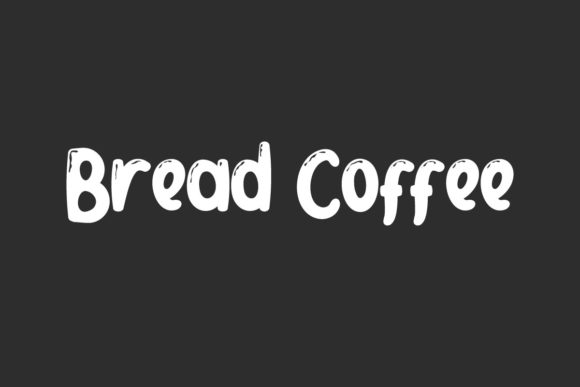
Dive into a world of whimsical charm with Bread Coffee Font, a captivating display font brimming with personality. Its playful and bubbly nature dances across your designs, adding a touch of magic to every letter. Whether you're crafting logos for kids, designing playful posters, or creating enchanting invitations, this font is your ultimate creative companion.
With its captivating curves and cheerful vibes, Bread Coffee Font transforms your words into captivating works of art. It's the perfect choice for those seeking to infuse their designs with a sense of joy and lightheartedness. Unleash your creativity and let your imagination soar as you explore the endless possibilities that await you with this delightful font.
Step into a realm of endless creative possibilities with Bread Coffee Font. From logos that radiate warmth and fun to posters that spark laughter and delight, this font is your secret weapon for creating designs that resonate with your audience. Its playful nature invites engagement, making it ideal for branding, marketing materials, and any project that seeks to capture hearts.
Bask in the versatility of Bread Coffee Font, effortlessly adapting to a myriad of design styles. Whether you're designing for the playful innocence of children, the vibrant energy of youth, or the nostalgic charm of simpler times, this font seamlessly blends with your vision. Let your creativity flourish as you discover new and exciting ways to bring your designs to life.
Embrace the enchanting power of Bread Coffee Font and watch as your designs come alive with unbridled joy and imagination. Let your words dance and stories unfold in a symphony of visual delight. With this font as your artistic partner, you'll create designs that captivate, inspire, and leave an indelible mark on your audience. Immerse yourself in the world of Bread Coffee Font and unlock the magic within your creations.